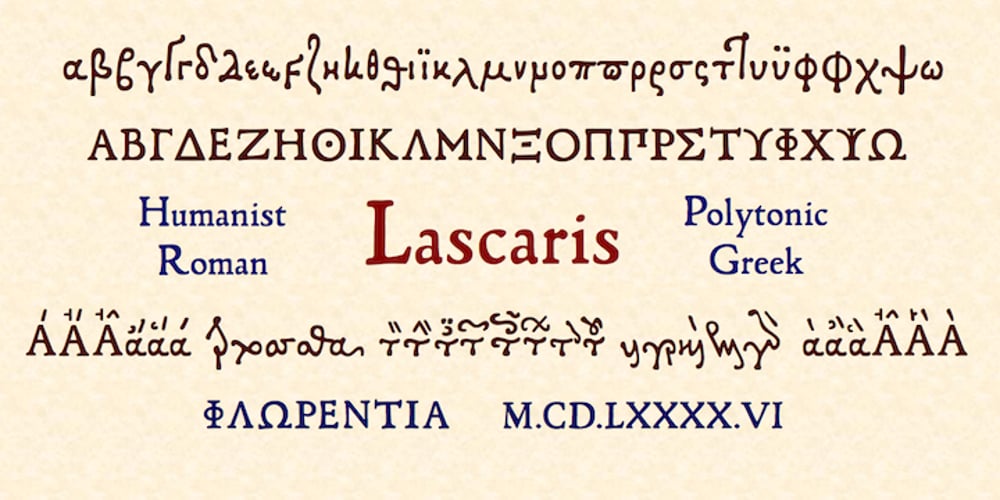
Lascaris Font Family was designed by Rolf Noyer, Janus Lascaris and published by Lascaris. Lascaris contains 2 styles and family package options. Lascaris is a digital rendition of Janus Lascaris’ type of 1494-1496, one of the earliest extant non-Aldine polytonic Greeks. The accompanying Roman, quirky and rich in color, was modeled on humanist types of late 15th century Florentine incunabula and has been extended to cover Central European, Baltic and Turkish character sets. With OpenType-aware applications (recommended), users can easily access the full set of abbreviations, ligatures and stylistic alternates of the original type, which – like most early Greek faces – was intended to imitate the handwriting of late Byzantine manuscript copyists. Unfortunately the identity of the punchcutter of this unique Greek face still remains a matter of conjecture.